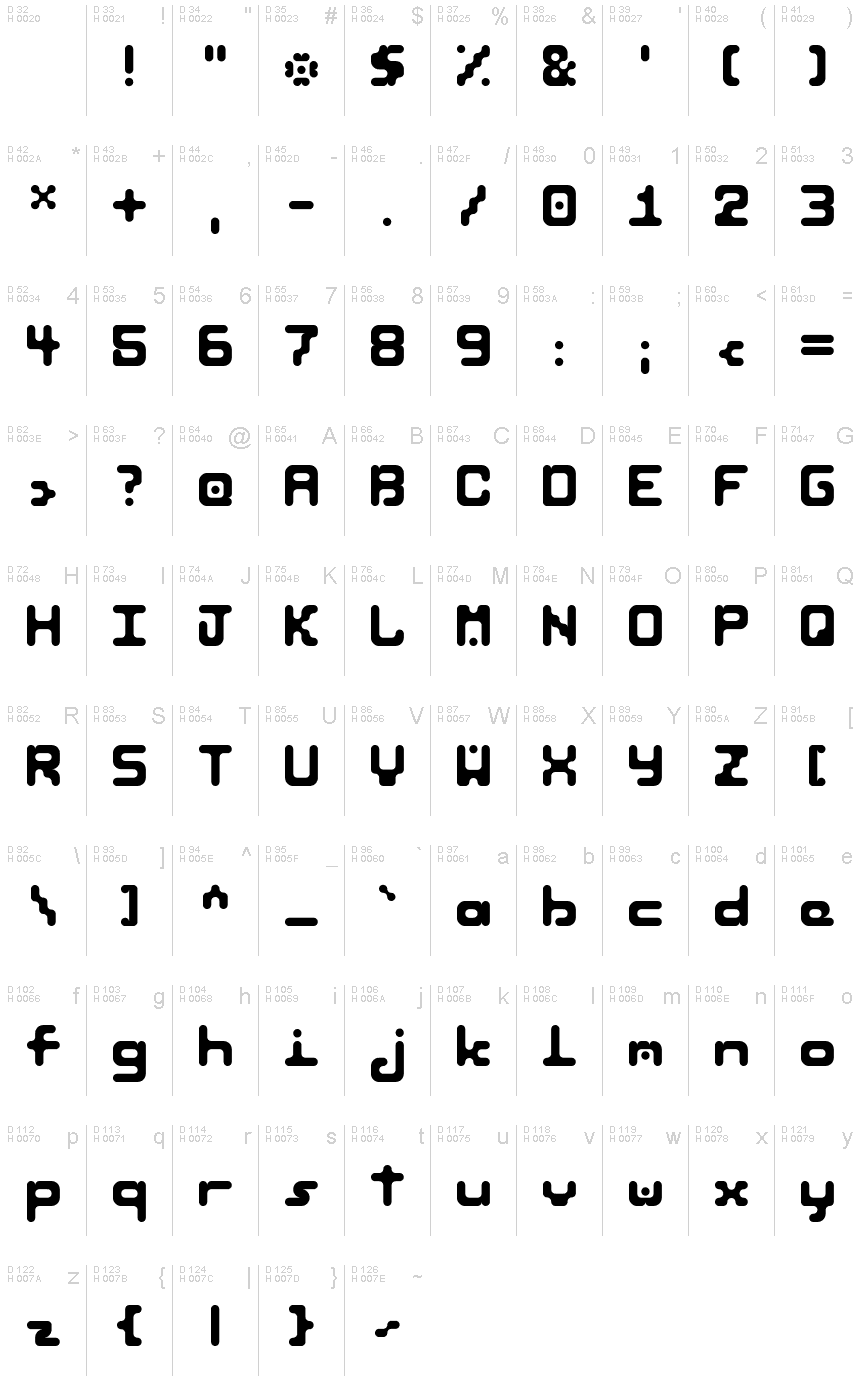
blooop
Blooop is a cutting-edge display font with a futuristic twist. Its sleek and streamlined design, combined with its extra-expanded width, creates an attention-grabbing visual impact. Perfect for sci-fi movie posters, technology-themed websites, or futuristic brand identities, Blooop adds a touch of innovation to any project. With its bold and distinctive appearance, this font is ideal for capturing the essence of forward-thinking concepts and captivating audiences. Elevate your designs to new heights with Blooop's unique blend of modernity and style. Let your creativity flow with this extraordinary typeface.